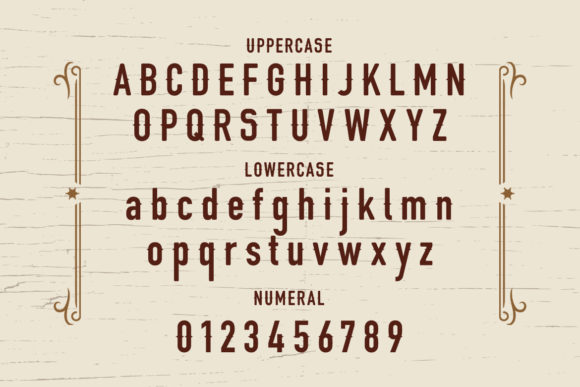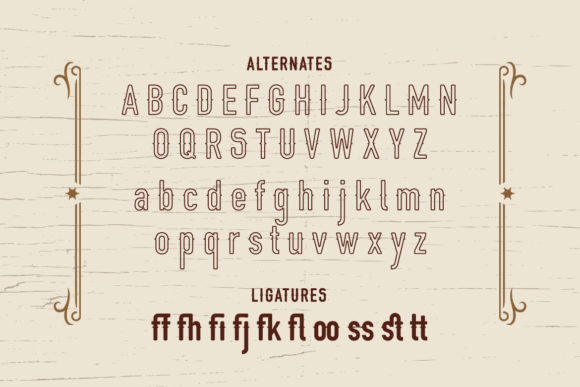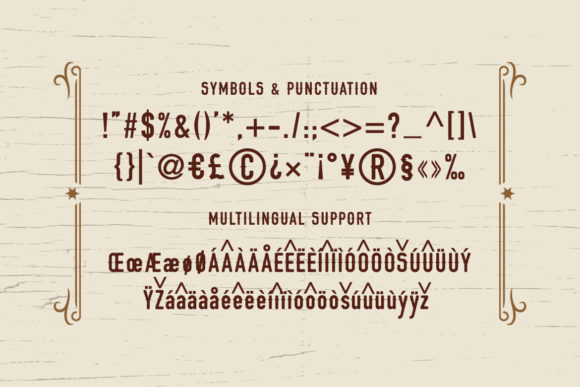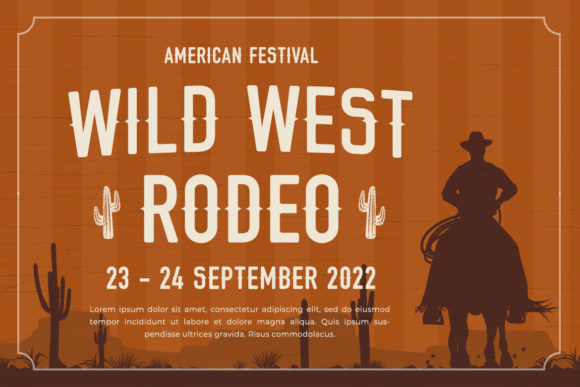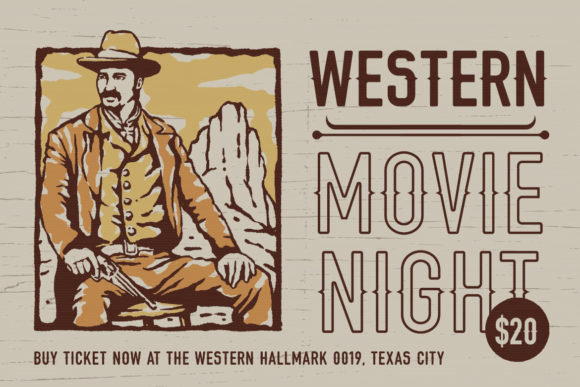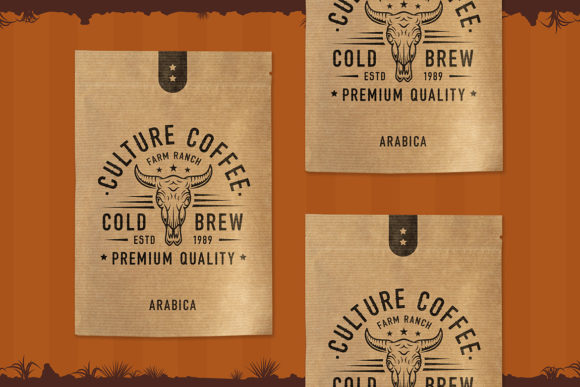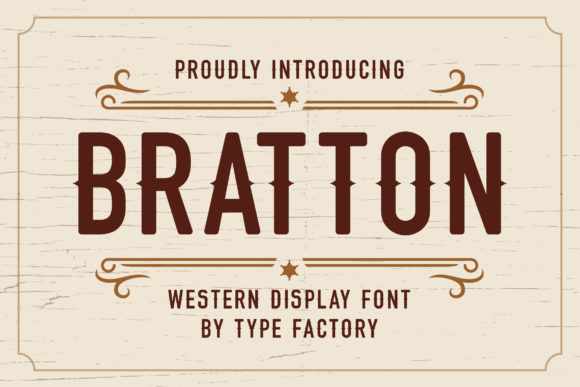
Bratton Font: A Western-Inspired Display Font for Creative Designs
In the world of typography, fonts play a crucial role in conveying the tone and aesthetic of a design. For designers and crafters looking for a western-inspired display font that exudes a touch of beauty, Bratton Font is an excellent choice. This versatile font is perfect for a wide range of creative projects, from cartoon-related designs and children’s games to quotes, titles, brand names, book covers, posters, and more.
What Makes Bratton Font Stand Out?
Bratton Font boasts a unique western look that instantly captures attention. Its distinctive style makes it an ideal choice for designers who want to add a touch of ruggedness and charm to their creations. Whether you’re working on a project that requires a bold statement or a subtle hint of the wild west, Bratton Font is up to the task.
Key Features of Bratton Font
- Western-Inspired Design: Bratton Font features a classic western look that’s perfect for designs that require a touch of ruggedness and charm.
- Outlined and PUA Encoded: This font is both outlined and PUA (Private Use Area) encoded, making it easy to access all glyphs and swashes.
- Versatile: Bratton Font is suitable for a wide range of creative projects, from cartoon-related designs and children’s games to quotes, titles, brand names, book covers, posters, and more.
Use Cases for Bratton Font
Bratton Font is a versatile font that can be used in a variety of creative projects. Here are some use cases where this font truly shines:
- Cartoon-Related Designs: Add a playful touch to your cartoon characters, logos, or titles with Bratton Font’s western-inspired design.
- Children’s Games: Create engaging and fun game titles, menus, or characters with this font’s bold and playful style.
- Quotes and Titles: Use Bratton Font to add a touch of elegance and sophistication to your quotes, titles, or headings.
- Brand Names: Create a memorable brand identity with Bratton Font’s unique and eye-catching design.
- Book Covers: Add a touch of ruggedness and charm to your book covers with this font’s western-inspired style.
- Posters: Create eye-catching posters for events, promotions, or advertisements with Bratton Font’s bold and attention-grabbing design.
Tips for Using Bratton Font
Bratton Font is a western-inspired display font that’s perfect for designers and crafters looking to add a touch of beauty to their creations. With its unique design, versatility, and ease of use, this font is sure to become a staple in your typography collection. Whether you’re working on a cartoon-related design, children’s game, quote, title, brand name, book cover, poster, or any other creative project, Bratton Font is an excellent choice.